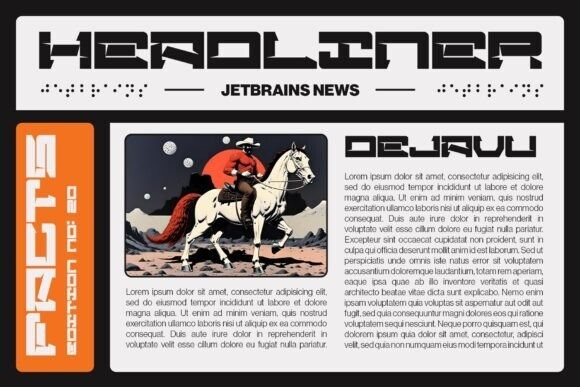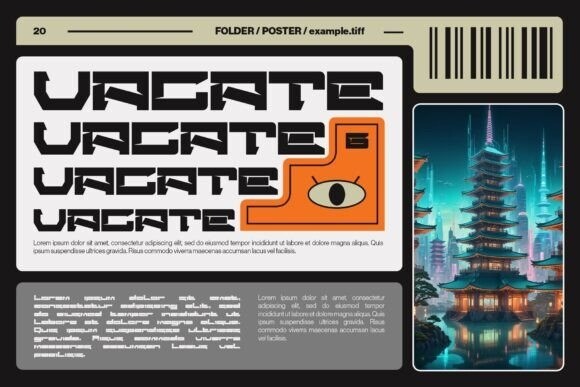
Coret Font
Designer: Koplexs Studio
Coret Font is a futuristic display font with bold, geometric letterforms and sharp angles, designed for tech branding, gaming logos, sci-fi posters, and modern digital projects. Created by Koplexs Studio, this expanded techno typeface combines style and readability, making it perfect for websites, merchandise, and creative campaigns. Its unique design ensures your visuals stand out while maintaining professional appeal. Download Coret today to elevate your designs with a high-tech, innovative edge!
CORET